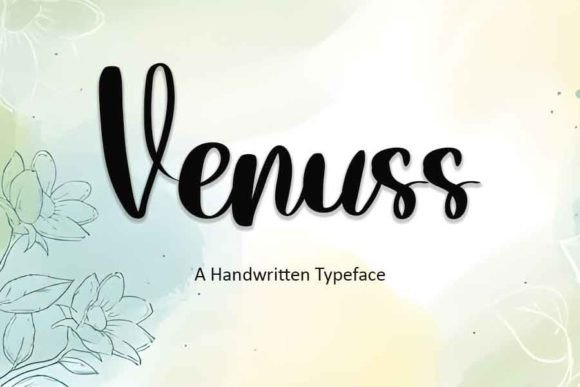
**Venuss Font: A Timeless Script for Special Celebrations**
In the realm of handwritten fonts, Venuss stands out as a masterpiece of simplicity and charm. Its elegant curves and delicate strokes evoke a sense of nostalgia, making it the perfect choice for creating heartfelt anniversary cards that convey your deepest emotions.
Picture this: a lovingly crafted card adorned with the beautiful script of Venuss. The words "Happy Anniversary" flow across the page, each letter meticulously penned with a touch of grace and elegance. The recipient's heart will flutter with joy as they read your heartfelt message, feeling the love and care you've poured into their special day.
With Venuss, you have the power to transform ordinary words into works of art. Its versatility extends beyond anniversary cards, making it an ideal companion for invitations, wedding stationery, and any other occasion that calls for a touch of personal flair. Let Venuss be your creative ally, helping you craft designs that leave a lasting impression.
**Unlock the Charm of Venuss and Make Your Anniversaries Unforgettable**
Venuss is more than just a font; it's an experience. Its enchanting characters will captivate your audience, drawing them into your words and making them feel like they're part of the story. Whether you're a seasoned designer or just starting your creative journey, the Venuss font will elevate your projects with its timeless beauty and heartfelt charm.